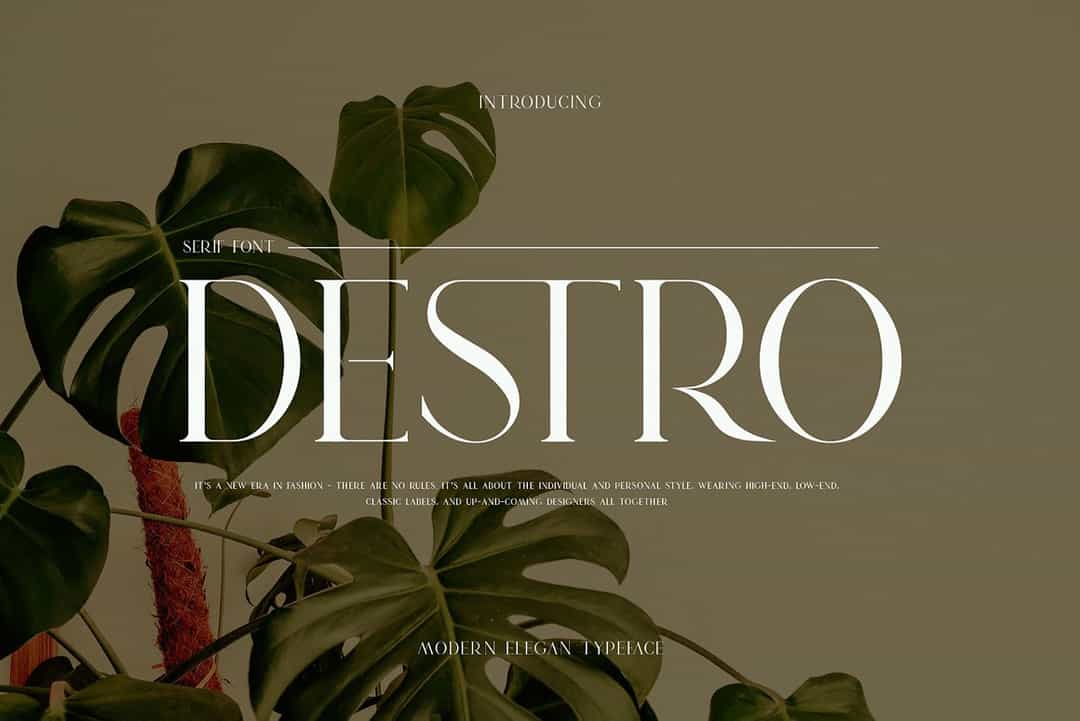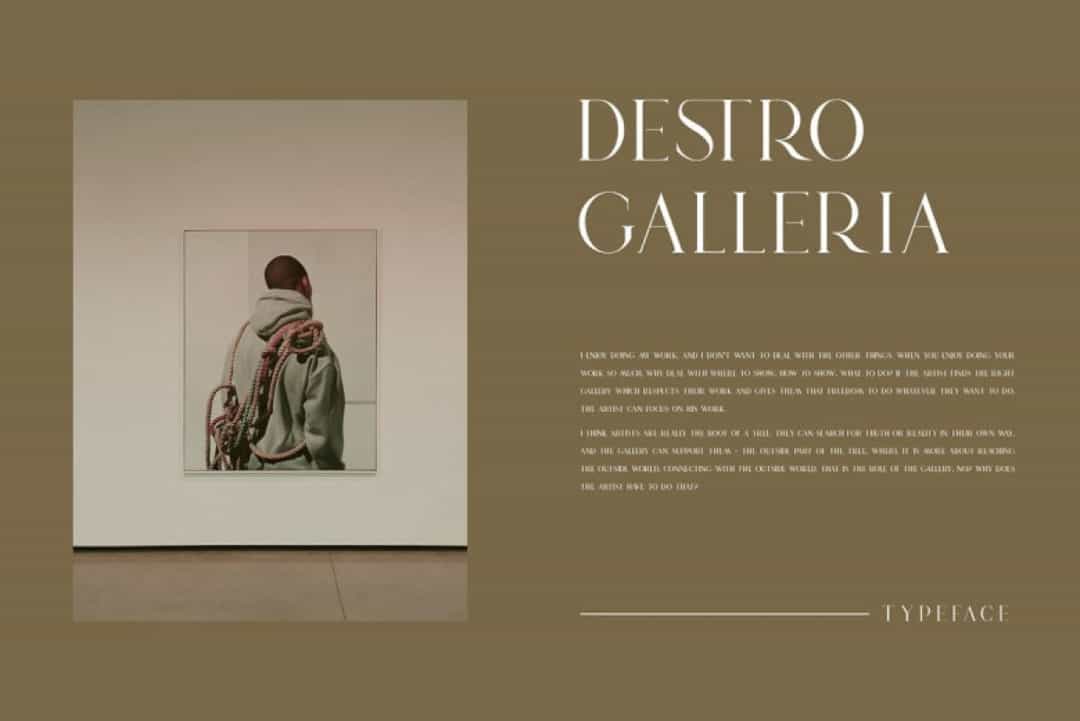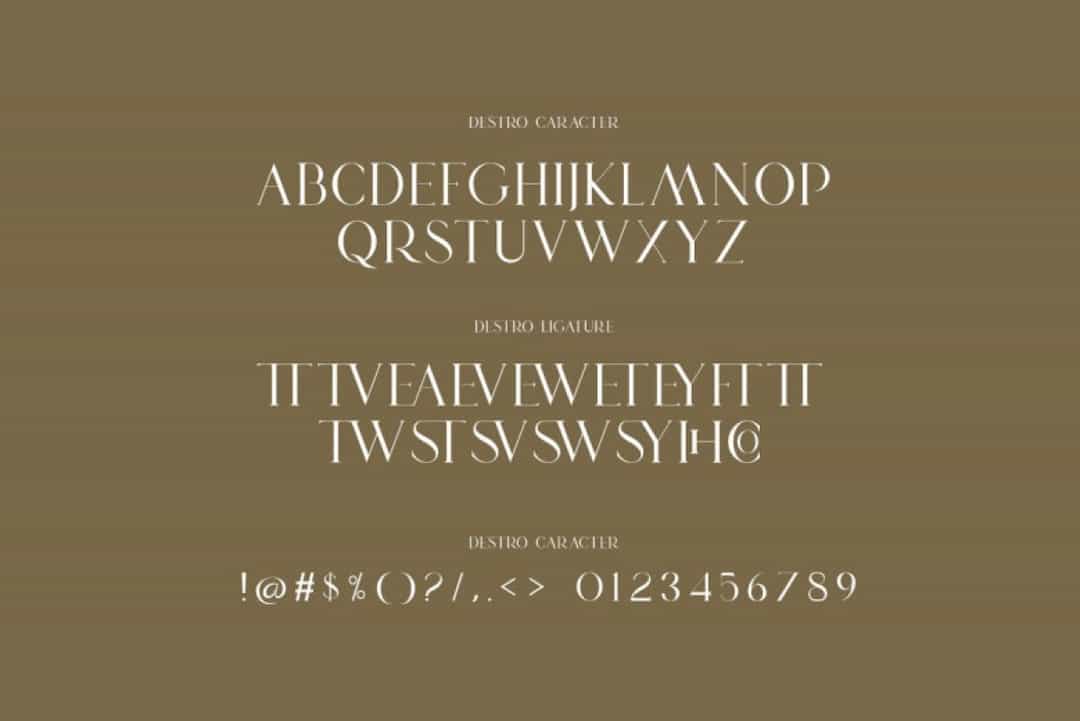
DSETRO Serif font. This elegant serif typeface is ideal for logos, magazines and social media designs alike. All fonts included in this bundle are already compatible for use together in your next design project. This font is ideal for designers seeking a touch of classy, stylish and chic in their designs.